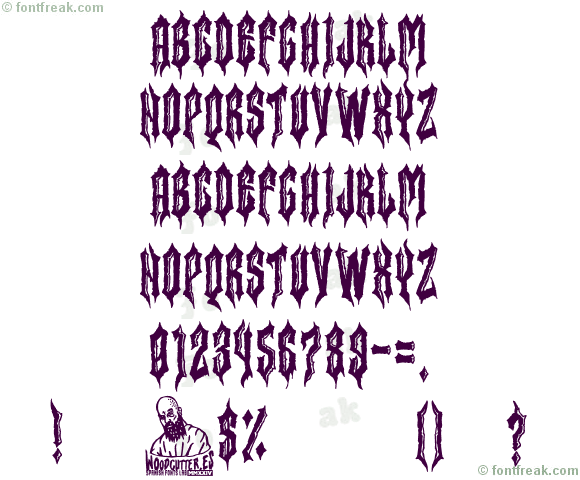
The King Manolo
About The King Manolo
The King Manolo font, designed by woodcutter Manero, is a striking display font that combines a unique gothic aesthetic with contemporary flair. This decorative typeface features sharp, elongated strokes and dramatic contrasts that evoke a sense of regal elegance and bold character. The intricate details and pointed serifs create a visually captivating experience, making it an ideal choice for projects that require a touch of sophistication and drama.
The King Manolo font excels in various applications, particularly in creating eye-catching wedding invitations, where its ornate style adds a romantic flair. It also shines in the context of movie posters, lending an air of mystique and grandeur that draws in viewers. Restaurant menus can benefit from its distinctive look, helping to set the tone for a high-end dining experience. Additionally, this font is perfect for branding and logos for businesses aiming to convey a sense of luxury and uniqueness.
The target audience for The King Manolo includes graphic designers seeking to enhance their creative projects, small business owners looking to elevate their brand identity, and content creators who want to make a memorable impact with their visual content.
What sets The King Manolo apart is its ability to merge traditional gothic elements with a modern sensibility, making it versatile for both classic and contemporary designs. The King Manolo font free download offers an opportunity for designers and brands to incorporate this extraordinary typeface into their work without the constraints of licensing fees. Its stunning visual appeal and versatility make it a standout choice for anyone looking to elevate their design projects.